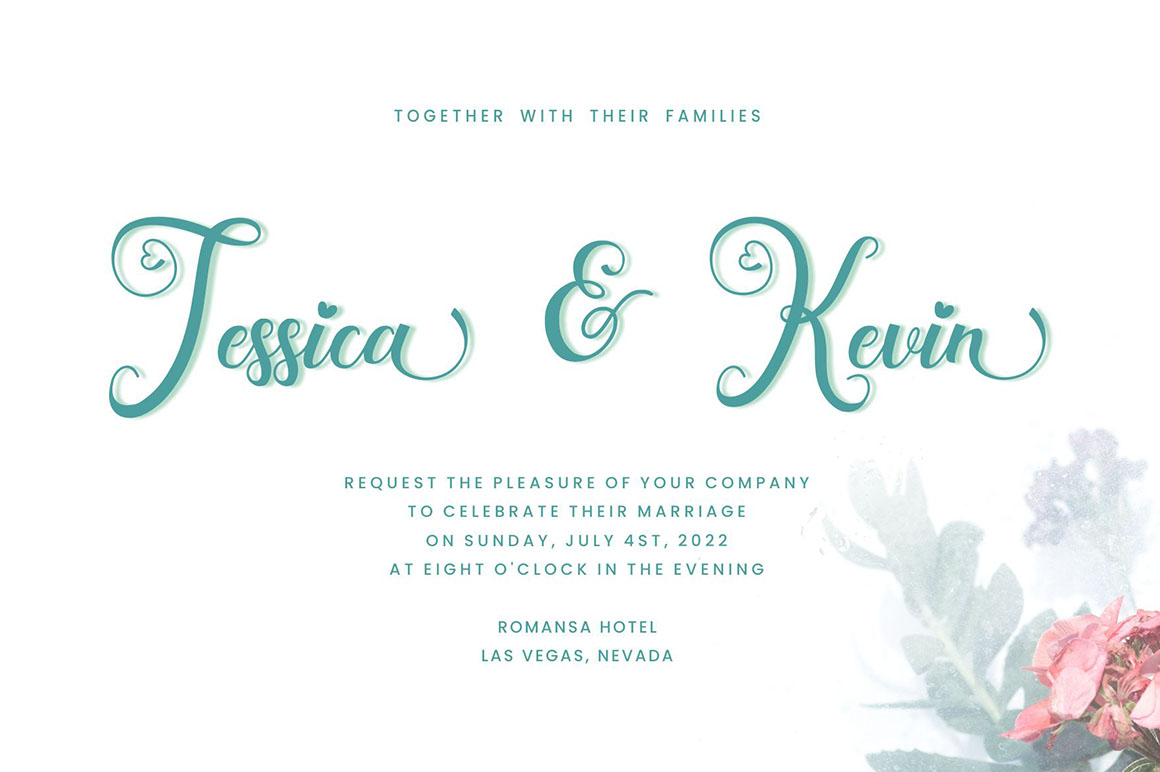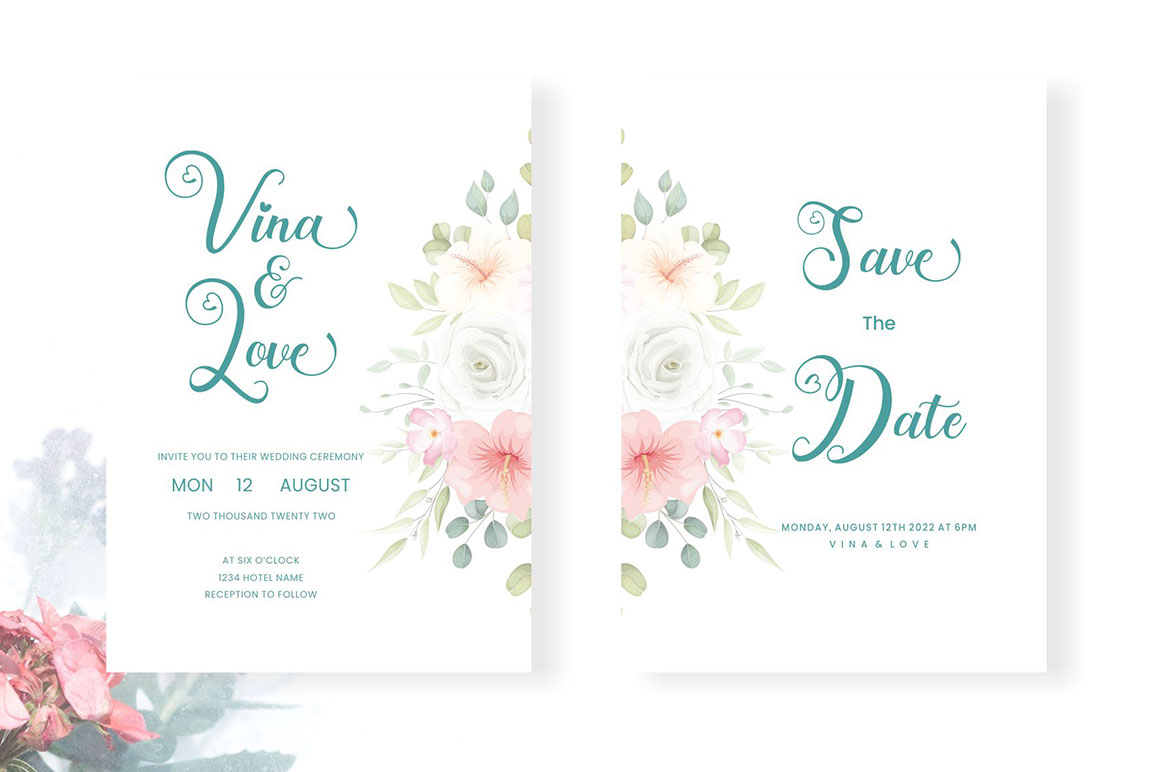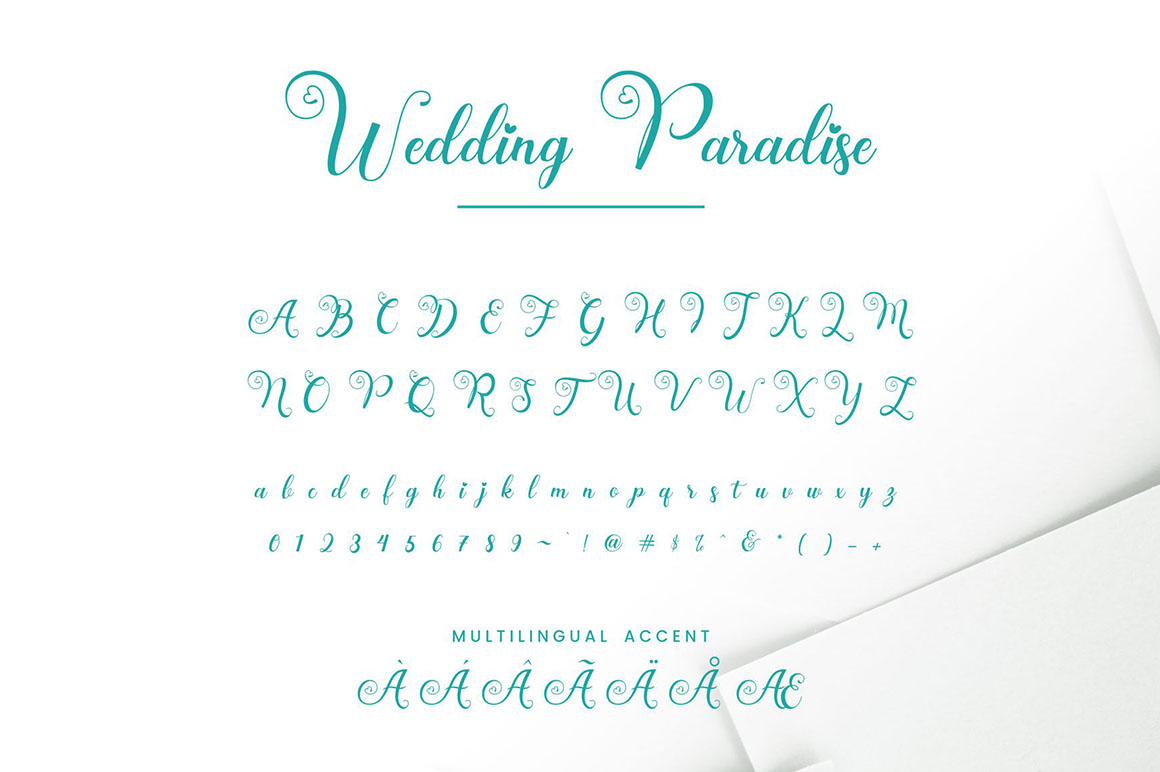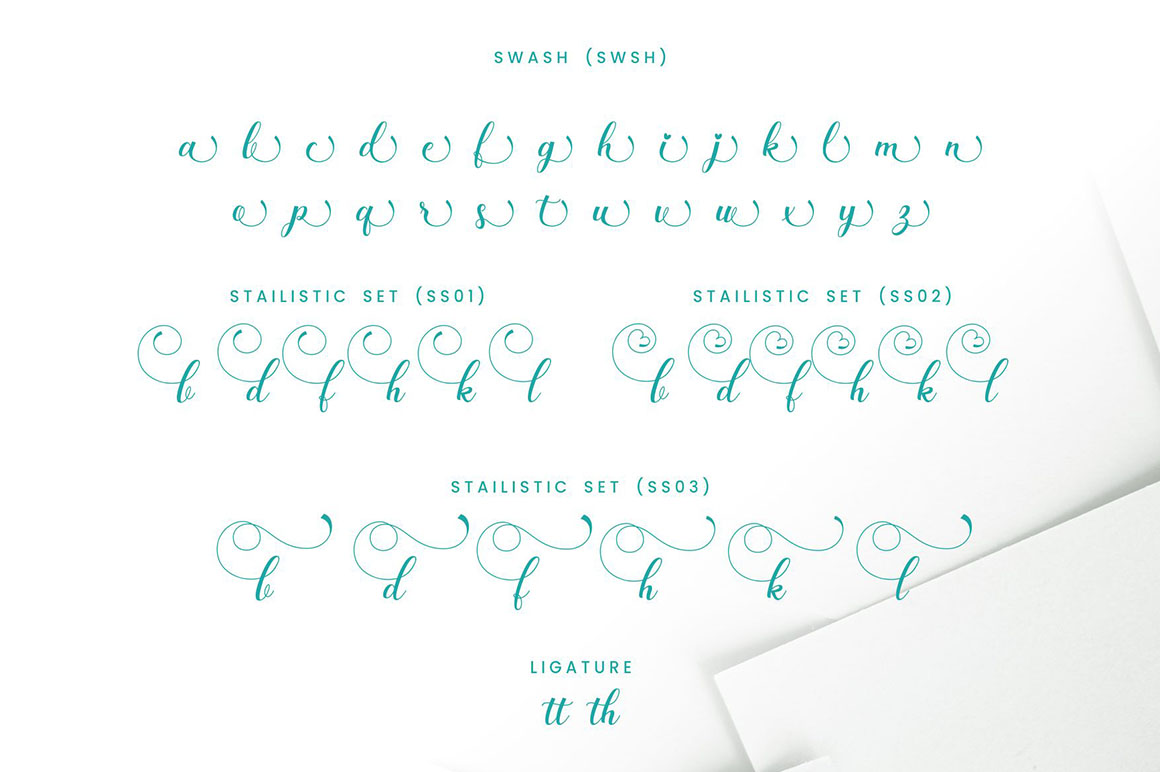
Wedding Paradise Font
Wedding Paradise Calligraphy Font
It’s a smooth, elegant and stylish handwritten font. It has a beautiful and balanced character and as a result, fits perfectly into any card, invitation or wedding decoration design. as well as various other designs such as company logos, business cards, book titles, brand names, and others.